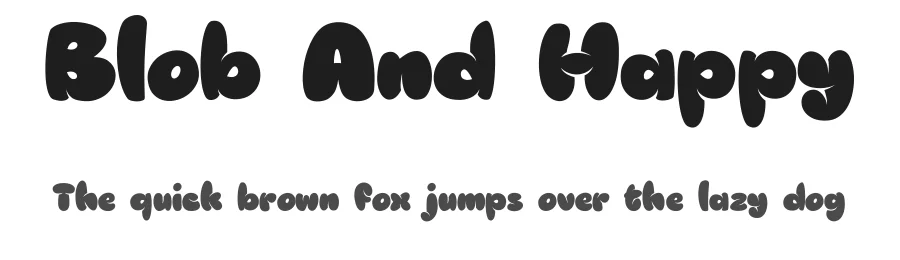
About Cookie Dough Font
| Designer | Jonathan S. Harris |
Cookie Dough Font is a decorative font that shines as a display or heading face. Pair it with a clean sans-serif or serif font for body text β the contrast creates a clear hierarchy while the two styles stay balanced and easy to read.